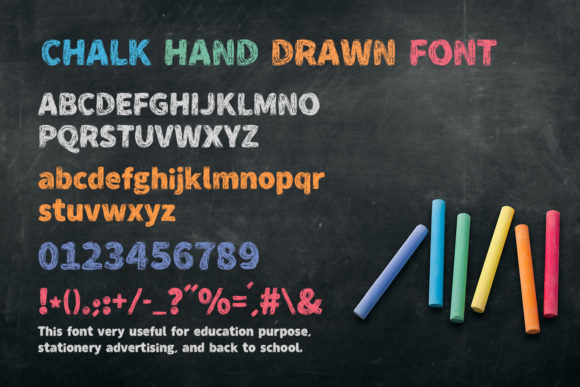
Introducing Chalk Hand Drawn Font - A Whimsical Journey into the Realm of Creativity
Step into a world where imagination reigns supreme, where chalk meets art, and where playful designs come alive. Chalk Hand Drawn Font is not just a font; it's an invitation to embark on a journey of creativity, a gateway to a realm where imagination knows no bounds.
With its playful, hand-drawn charm, Chalk Hand Drawn Font is a delightful addition to any design project. Inspired by the nostalgic charm of schoolhouse chalkboards, this font captures the essence of childhood wonder, creativity, and the boundless imagination of a young mind.
Crafted with meticulous attention to detail, each character in the Chalk Hand Drawn Font family exudes personality and charm. The carefully designed strokes and curves mimic the natural flow of chalk on a blackboard, creating an authentic and engaging experience.
Whether you're creating invitations for a whimsical children's party, designing posters for a school event, or simply adding a touch of playfulness to your designs, Chalk Hand Drawn Font is the perfect choice. Its versatility and wide range of applications make it a must-have for any designer looking to add a unique touch to their projects.
Unleash your creativity and let the world be your canvas with Chalk Hand Drawn Font. Its captivating charm, playful spirit, and limitless applications make it the perfect font for anyone looking to make a lasting impression.